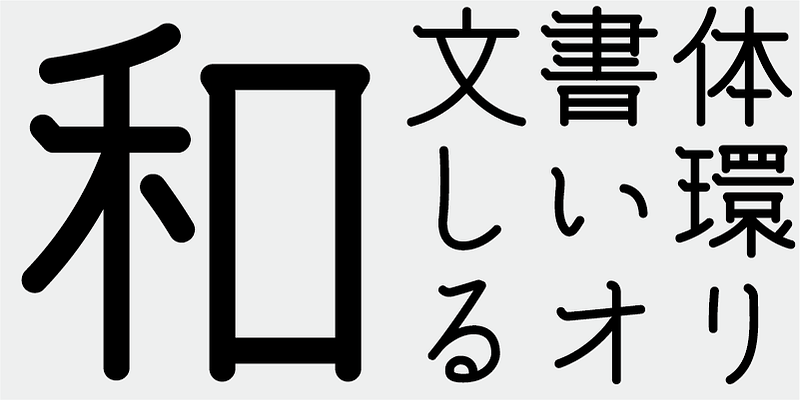
AB Kinmokusei Kuro Font Free Download is an elegant and refined typeface inspired by traditional Japanese calligraphy, offering a unique blend of classic beauty and modern design elements. With its bold strokes and graceful curves, AB Kinmokusei Kuro is ideal for cultural branding, posters, editorial design, invitations, and any project requiring a sophisticated yet striking appearance.
The font’s sharp, clean lines and distinctive style bring depth and personality to your designs, while its support for both Japanese and Latin scripts makes it a versatile option for bilingual or international projects.